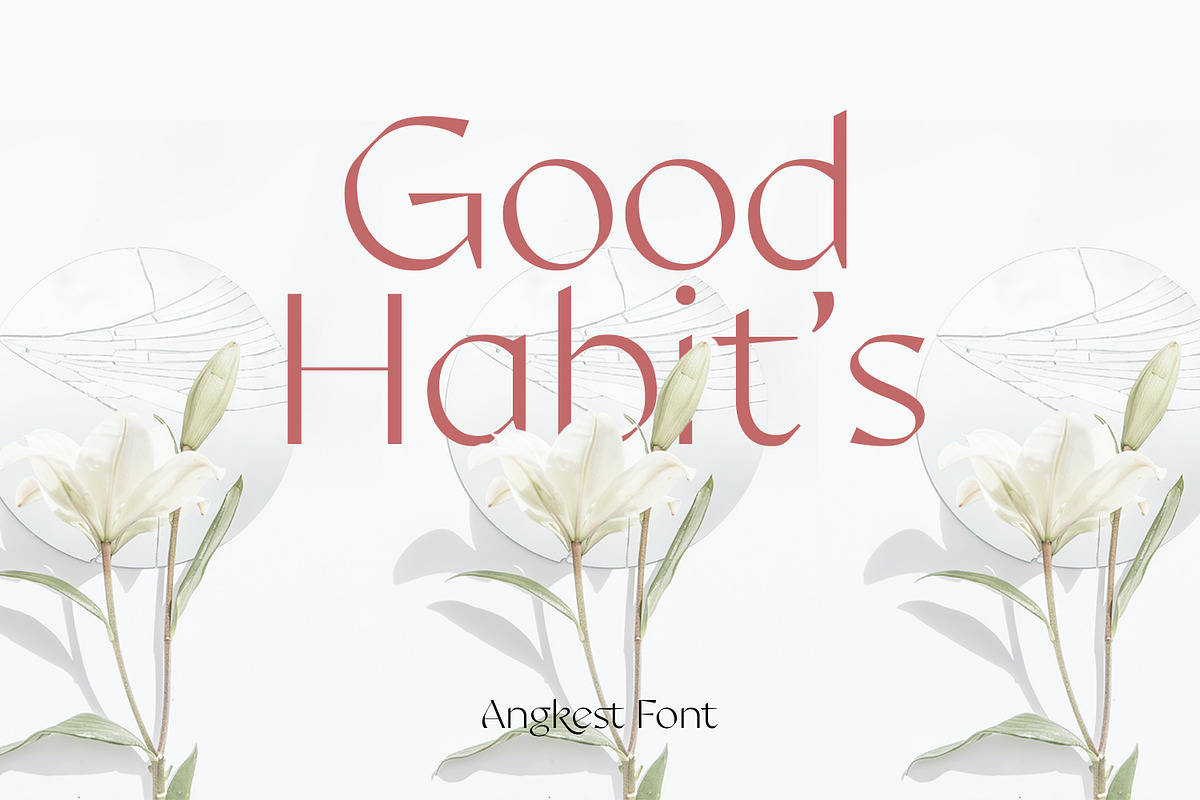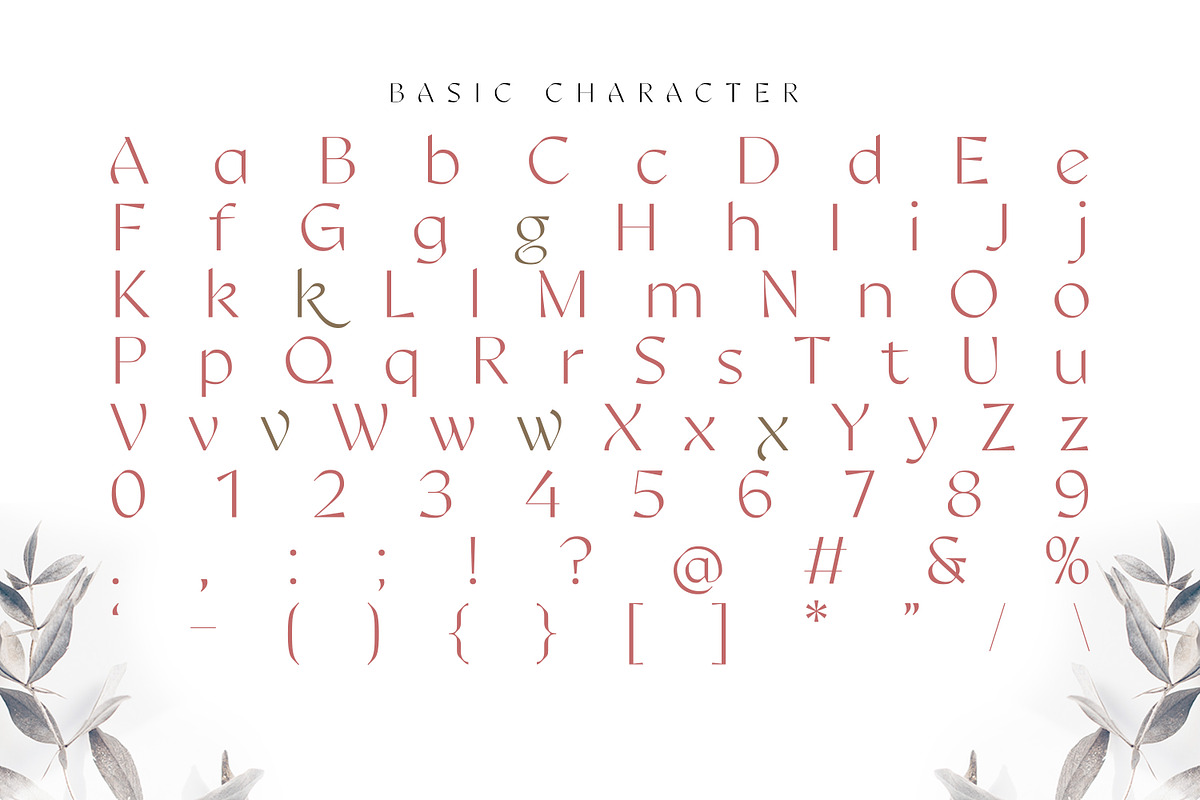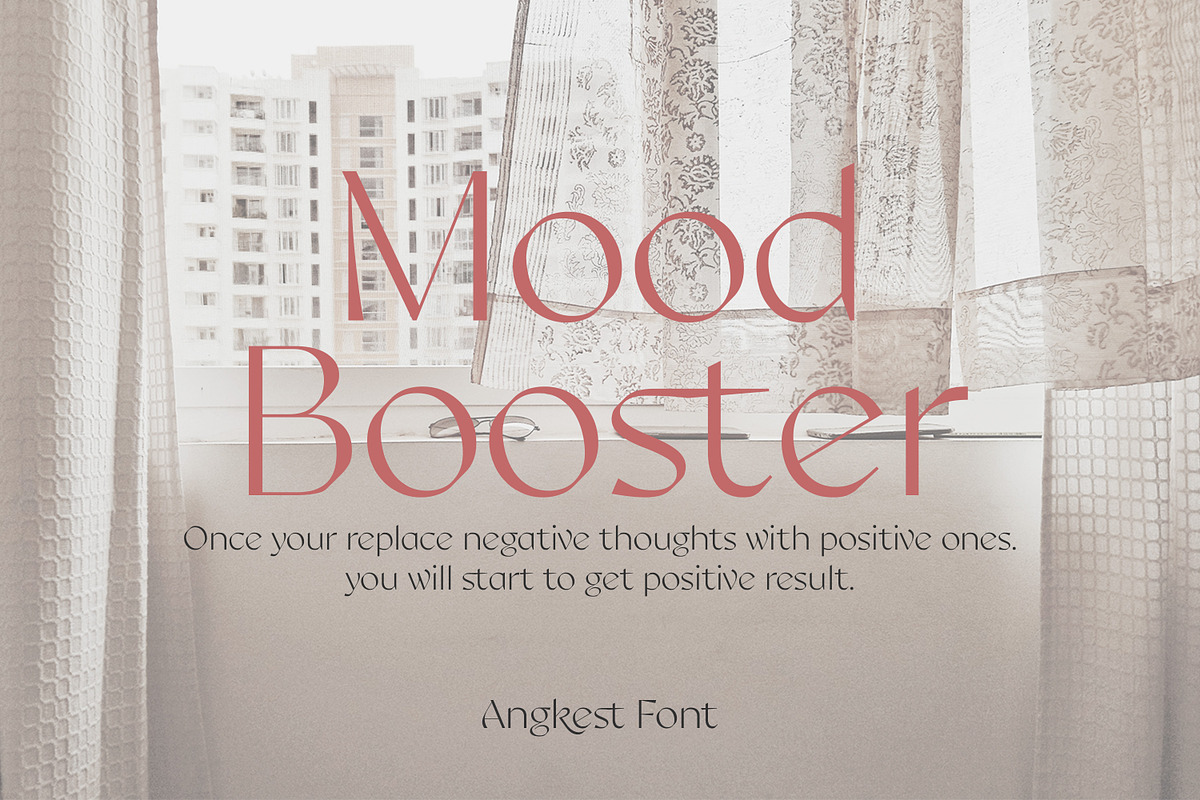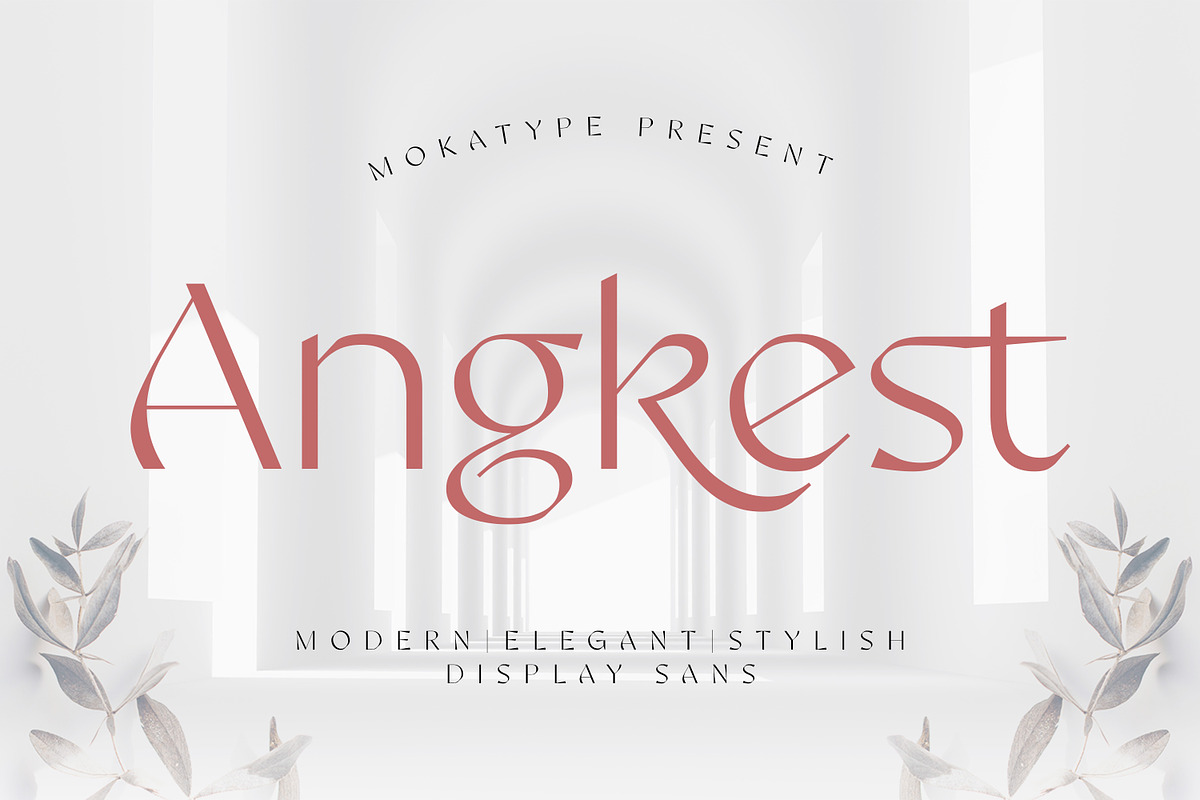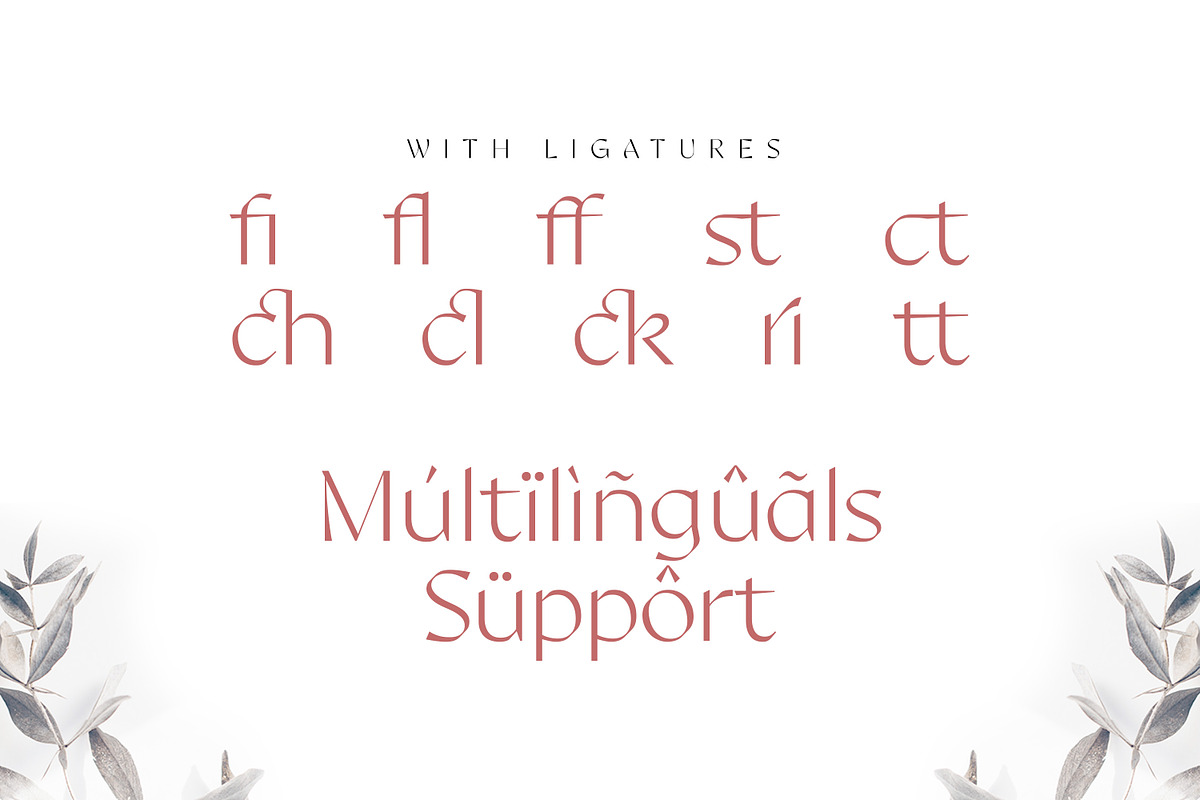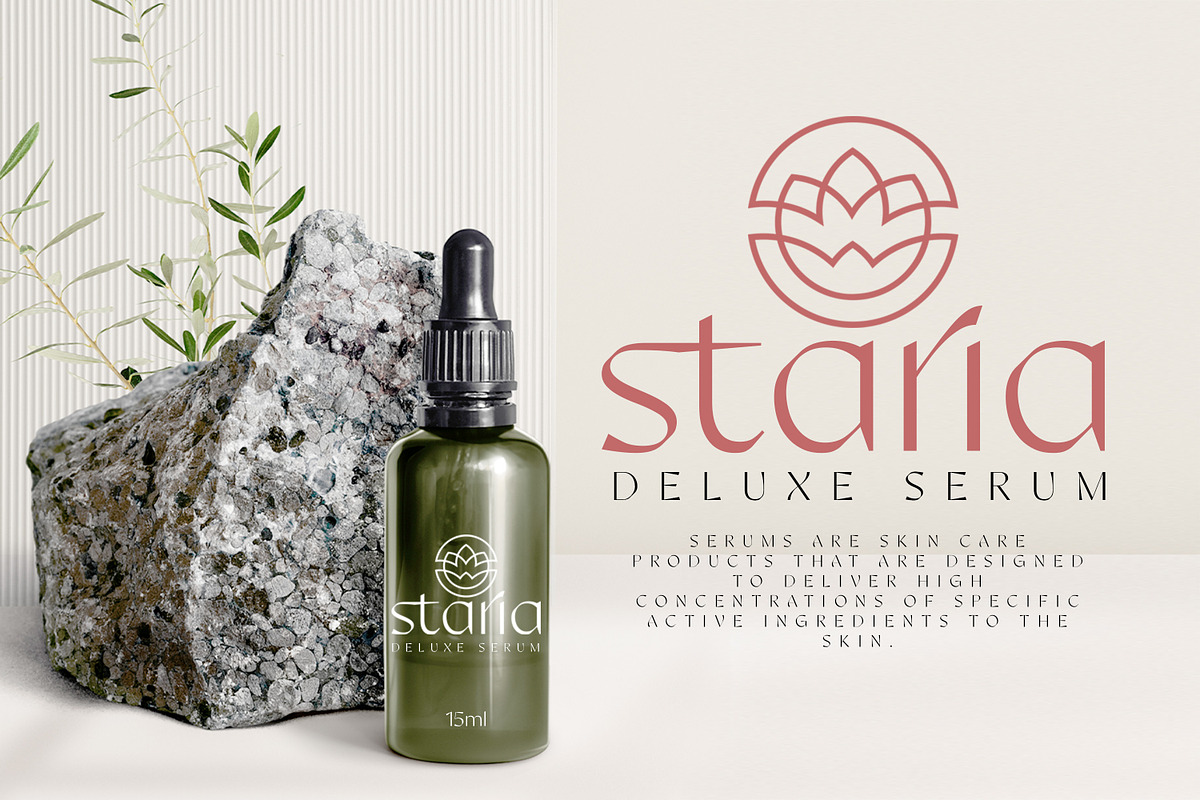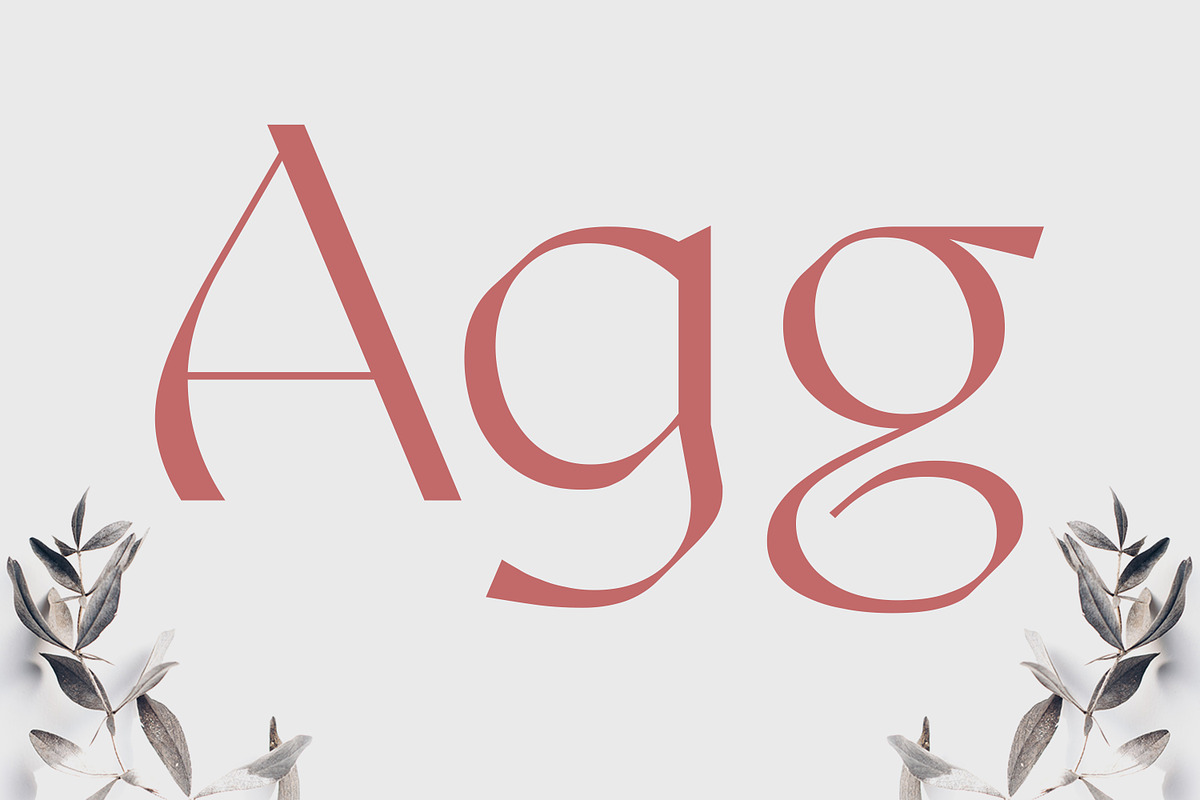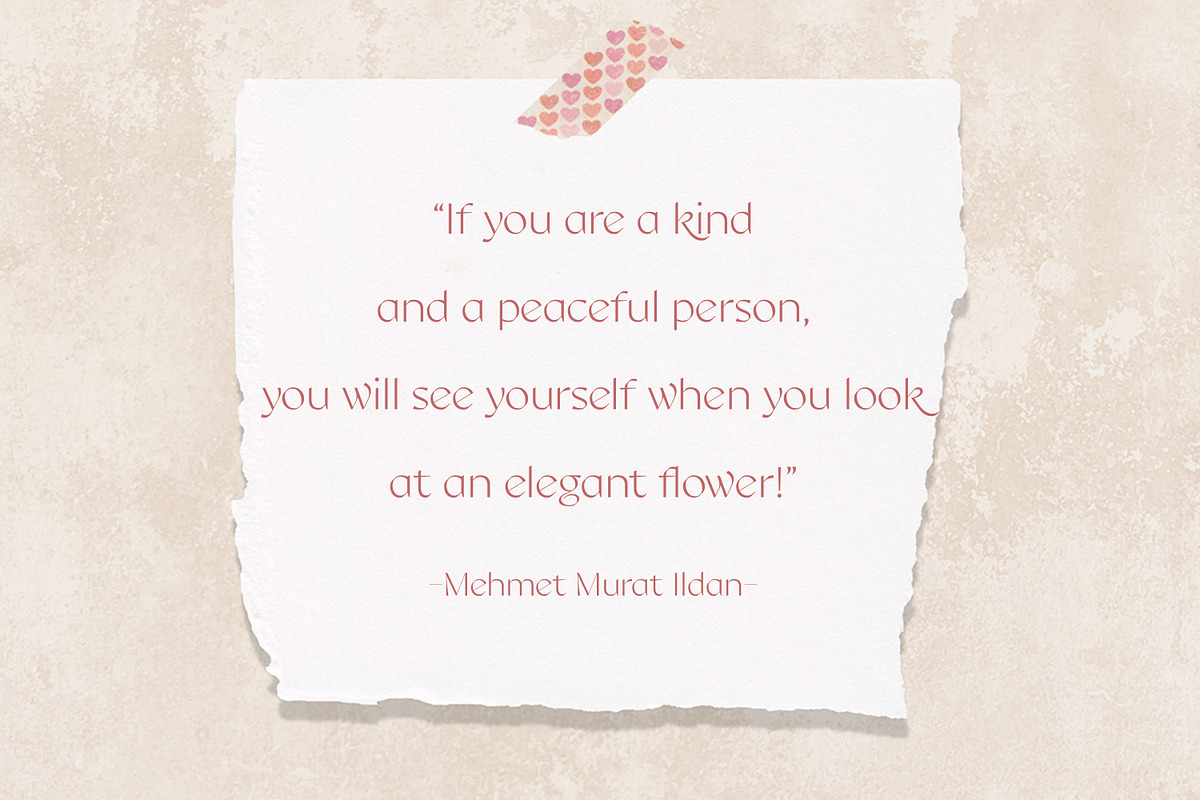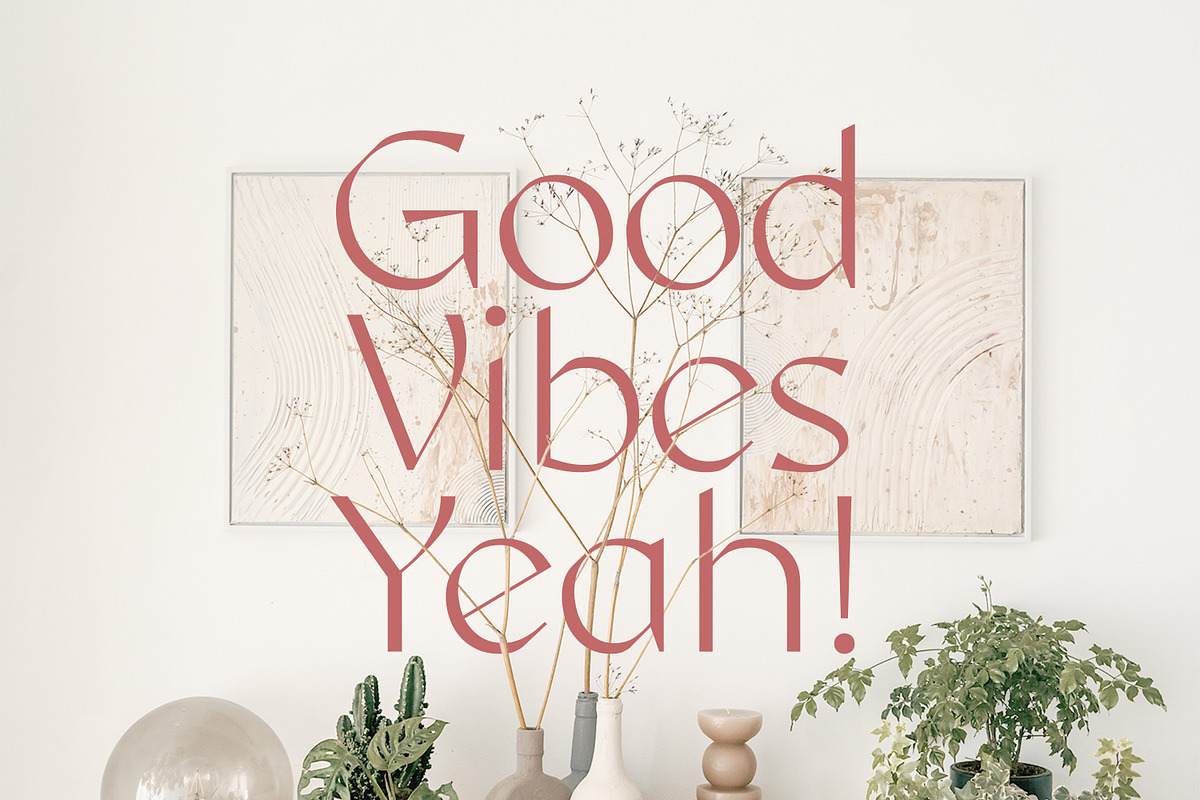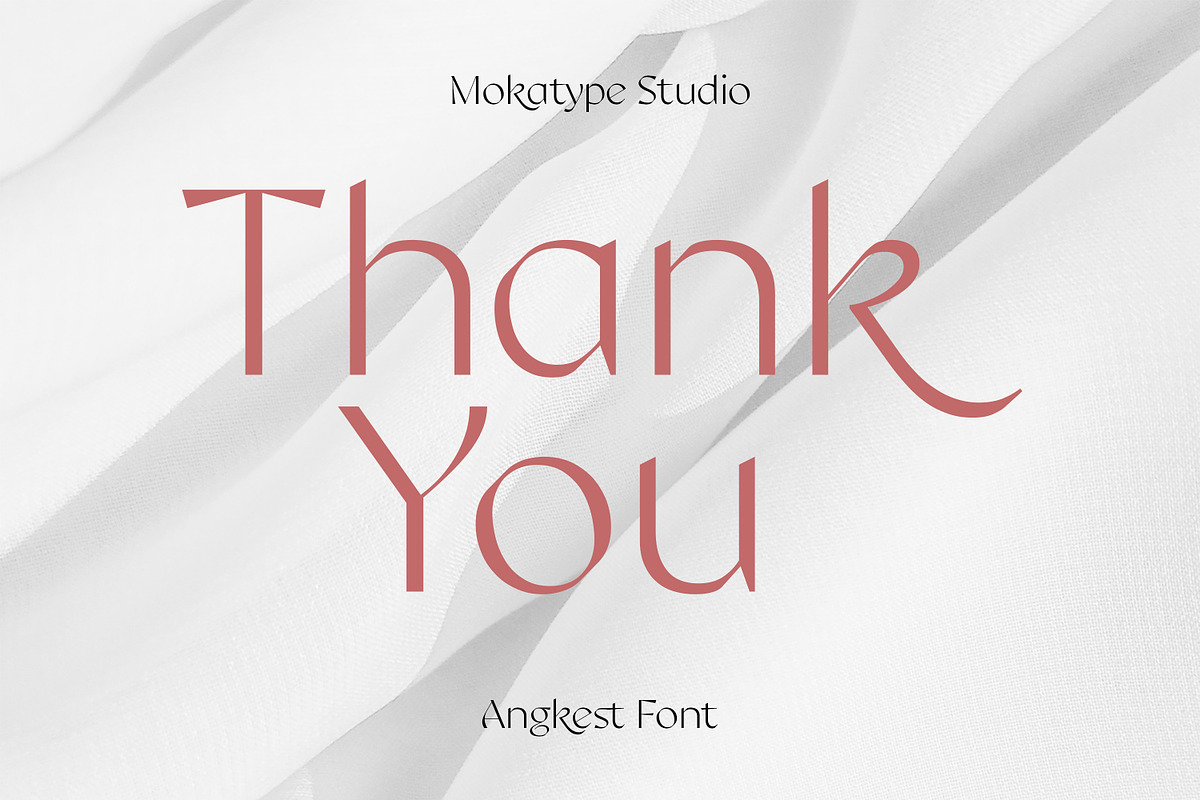
Angkest - Elegant Sans
Angkest is an elegant display sans font with a unique slant at a curve letter. This font builds with an elegant and stylish look it really perfect for headlines, typography, Poster, magazines, brochures, packaging, websites, and much more for your design needs, making your designs look like Luxurious nuances. What's Included :